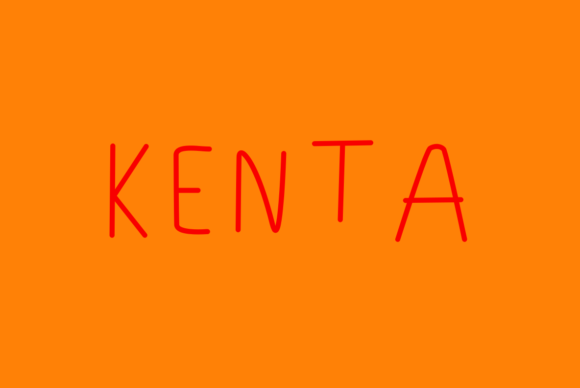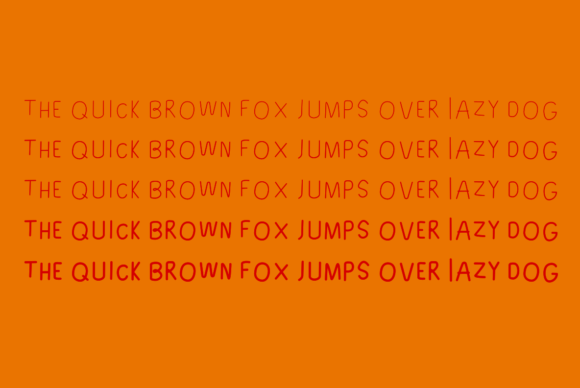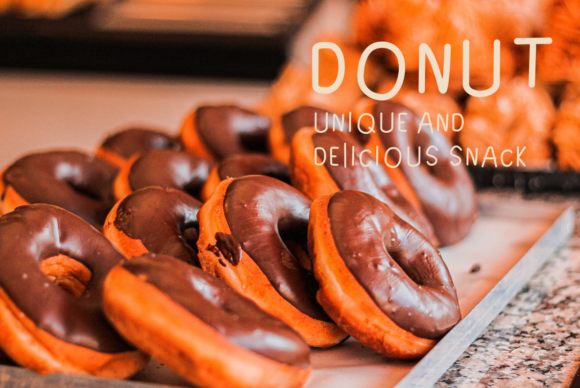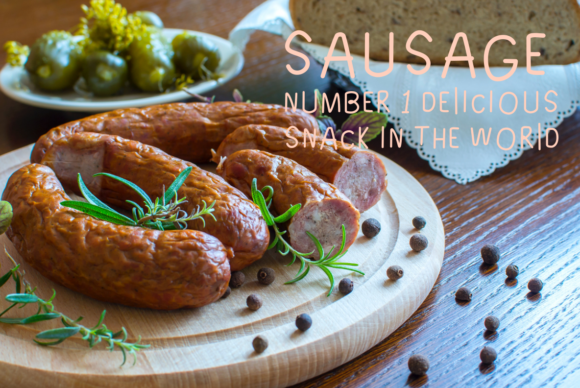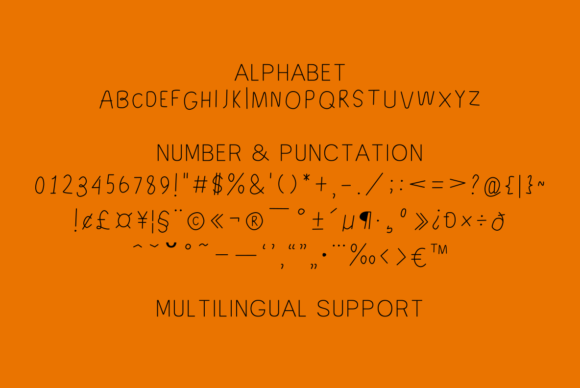
Kenta Font
About Kenta Font
Kenta is a thin, simple and readable handwritten font. Whimsical and a bit quirky, this font will brighten up each of your designs. Add it confidently to your projects, and you will love the results.